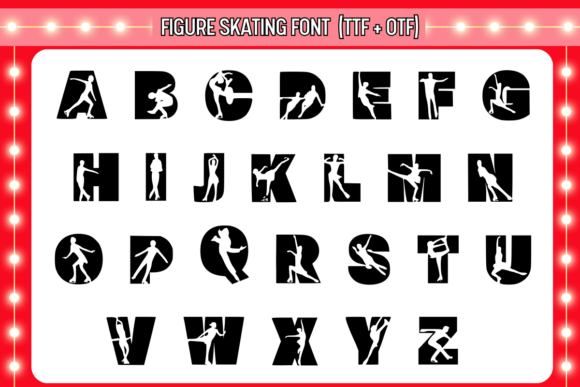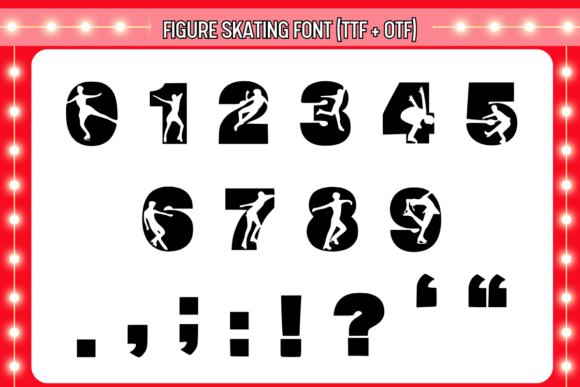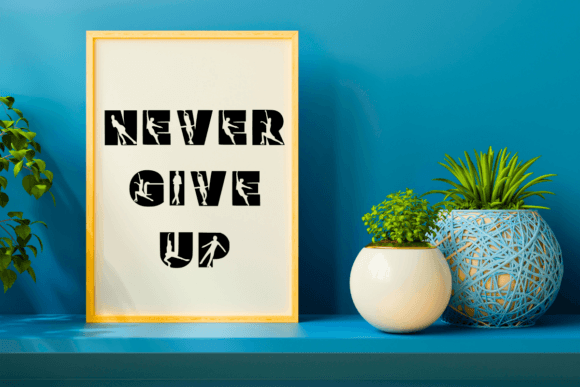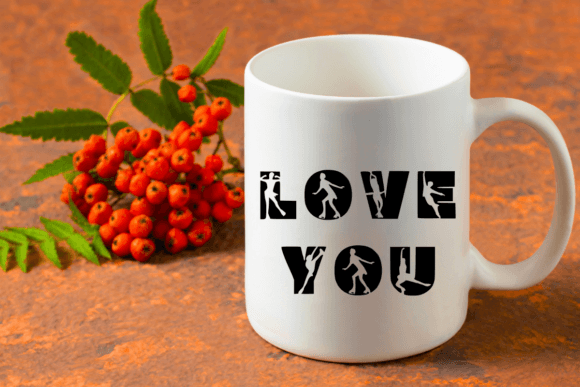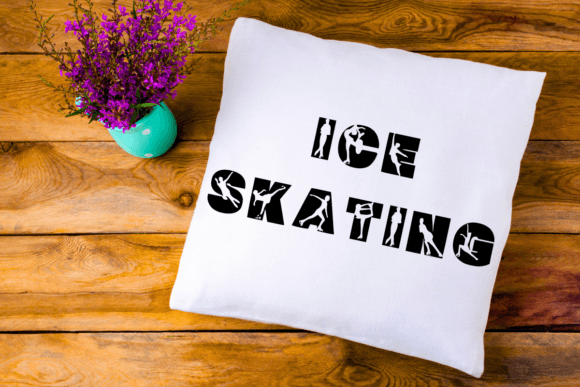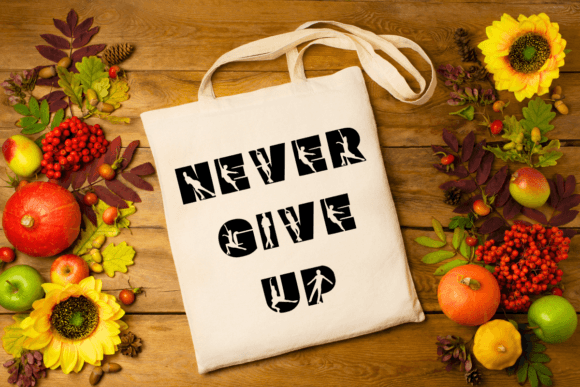
Figure Skating Font: Elevate Your Designs with Elegance and Movement
Are you looking for a font that embodies the beauty, elegance, and dynamism of figure skating? Look no further than the Figure Skating Font. This stunning font is designed to capture the essence of ice skating, bringing the artistry and movement of the rink to your designs. With its elegant silhouettes of figure skaters in iconic poses, this font is perfect for sports-themed projects, winter event posters, competition flyers, or any creative endeavor that needs a touch of sophistication and energy.
The Inspiration Behind Figure Skating Font
The Figure Skating Font is inspired by the beauty and athleticism of figure skating. Each character in the font features a silhouette of a figure skater in a different pose, showcasing the elegance, flexibility, and movement of the sport. The font’s design is carefully crafted to convey the sense of freedom and joy that comes with gliding across the ice. Whether you’re a designer, a crafter, or simply a figure skating enthusiast, this font is sure to inspire you to create something truly special.
Key Features of Figure Skating Font
- Elegant Silhouettes: Each character in the font features a beautiful silhouette of a figure skater in an iconic pose, adding a touch of elegance and sophistication to your designs.
- Dynamic Movement: The font’s design captures the movement and energy of figure skating, making it perfect for projects that require a sense of dynamism and action.
- Sports-Themed: The Figure Skating Font is ideal for sports-themed projects, including posters, flyers, and brochures for figure skating competitions, events, and programs.
- Winter Wonderland: The font’s winter-inspired design makes it perfect for projects related to winter events, such as snow festivals, ice skating rinks, and winter sports competitions.
- Customizable: The Figure Skating Font is highly customizable, allowing you to adjust the font size, color, and style to suit your design needs.
Uses for Figure Skating Font
The Figure Skating Font is versatile and can be used in a variety of projects, including:
- Sports Posters: Create eye-catching posters for figure skating competitions, events, and programs.
- Winter Event Flyers: Design flyers for winter events, such as snow festivals, ice skating rinks, and winter sports competitions.
- Social Media Graphics: Use the Figure Skating Font to create engaging social media graphics, including Instagram posts, Facebook covers, and Twitter headers.
- Brochures and Programs: Add a touch of elegance and sophistication to your brochures and programs for figure skating events and competitions.
- DIY Crafts: Use the Figure Skating Font to create custom DIY crafts, such as handmade cards, gift tags, and decorations.
Tips for Using Figure Skating Font
Here are some tips for using the Figure Skating Font in your designs:
- Pair with Bold Colors: Pair the Figure Skating Font with bold, bright colors to create a striking contrast and make your designs pop.
- Experiment with Font Sizes: Experiment with different font sizes to create visual interest and emphasize key elements in your designs.
- Add Texture and Patterns: Add texture and patterns to your designs to give them a more dynamic and interesting look.
- Keep it Simple: Don’t overcomplicate your designs – keep them simple and elegant to let the Figure Skating Font shine.
| Font Name | Figure Skating Font |
| Author | Kalilaart |
The Figure Skating Font is a beautiful and dynamic font that captures the essence of figure skating. With its elegant silhouettes of figure skaters in iconic poses, this font is perfect for sports-themed projects, winter event posters, competition flyers, or any creative endeavor that needs a touch of elegance and energy. Whether you’re a designer, a crafter, or simply a figure skating enthusiast, this font is sure to inspire you to create something truly special. So why wait? Download the Figure Skating Font today and start creating stunning designs that will leave a lasting impression!